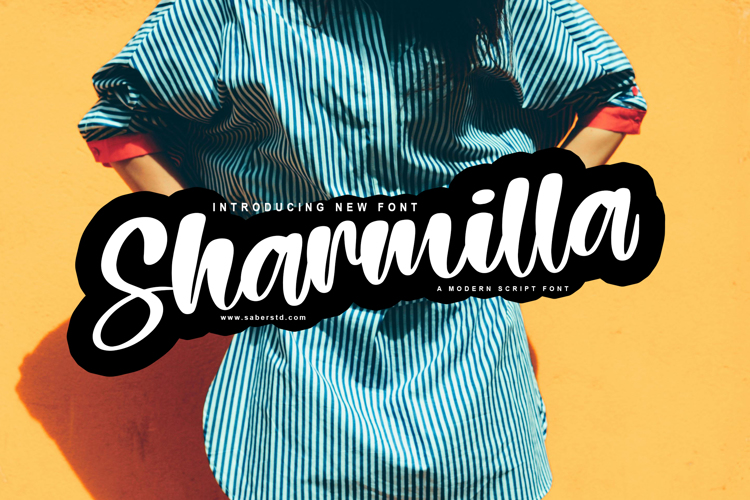
Sharmilla Font
Sharmila Font is a handwritten display font with a strikingly authentic feel font is our new item that is suitable for your Posters. Great for Logo, Poster, Sticker, Jerseys, Invitation Cards, Brochure, etc.